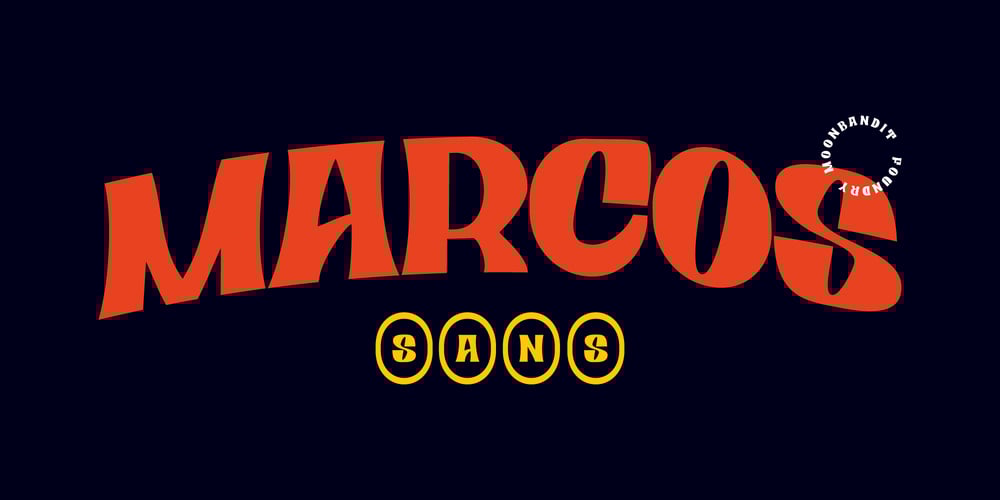
MBF Marcos
MBF Marcos font
MBF Marcos Font Family was designed by Bramaji Dipa Manggala and published by Moonbandit. MBF Marcos contains 1 styles and family package options. Marcos, a playful vintage display font, bold and quirky, perfect for that retro look. every glyph is uniquely crafted. Marcos is perfect for logo, title, headline, even text, it is versatile and have high exposure.